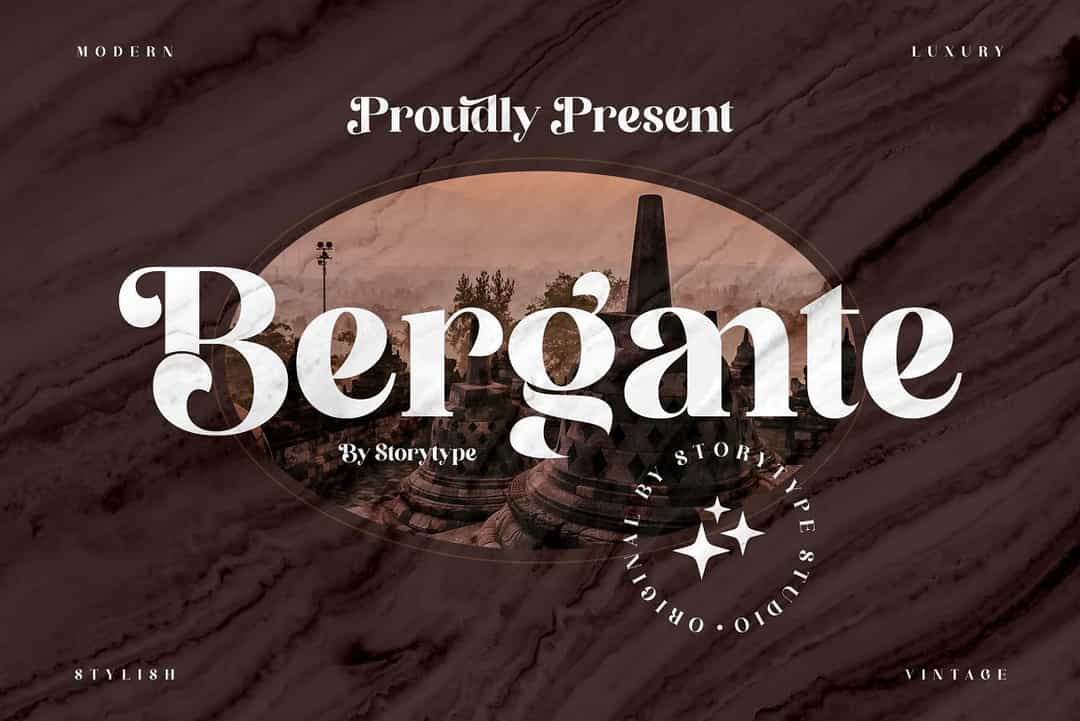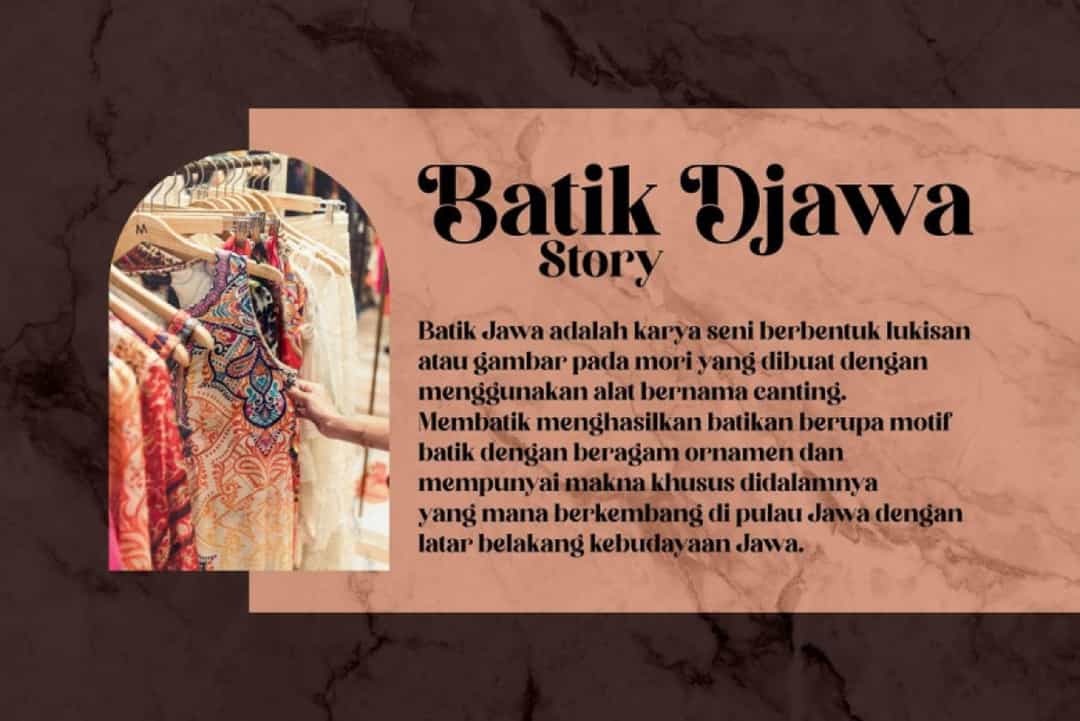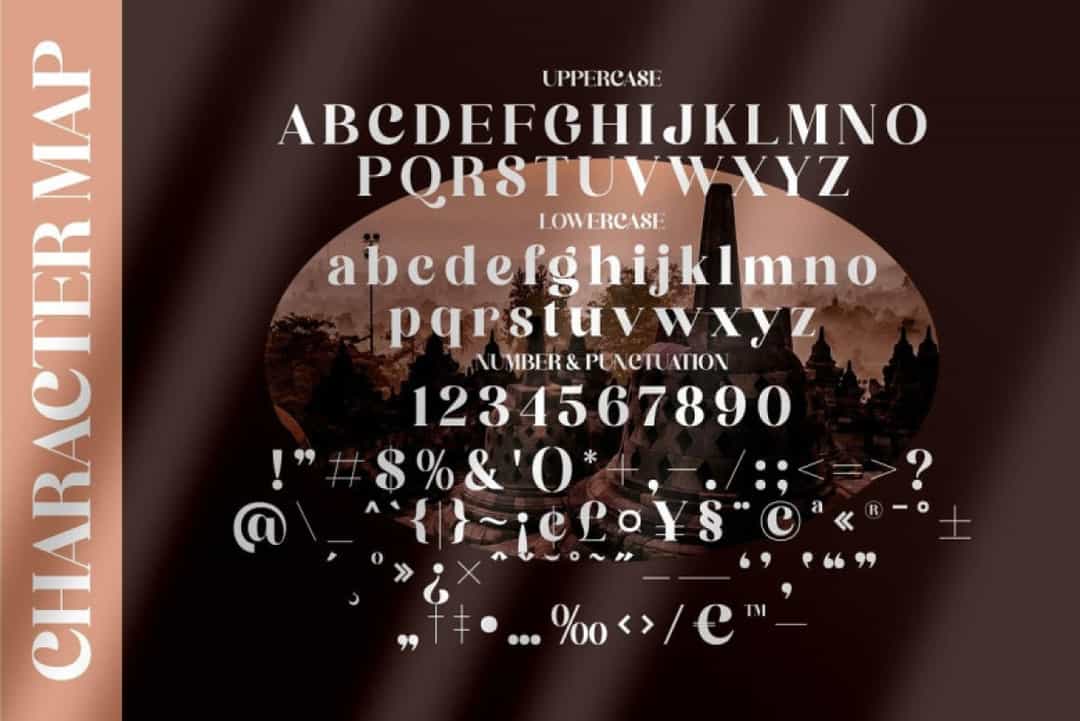
Bergante Serif font by StoryType offers an elegant design with its distinctive style and modern appeal, making it ideally suited to creating stylish logos, book or film titles, fashion brand clothing labels and magazines, lettering pieces as well as quotations or any number of other projects.